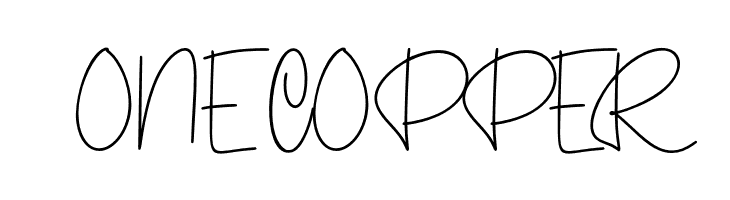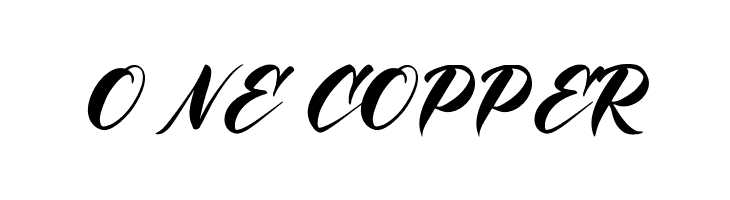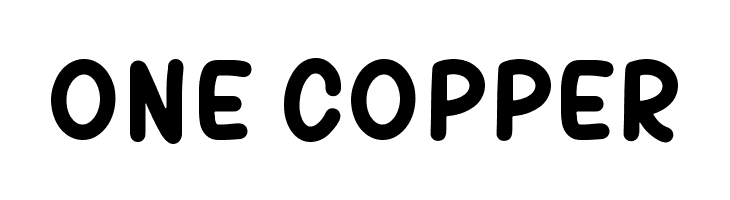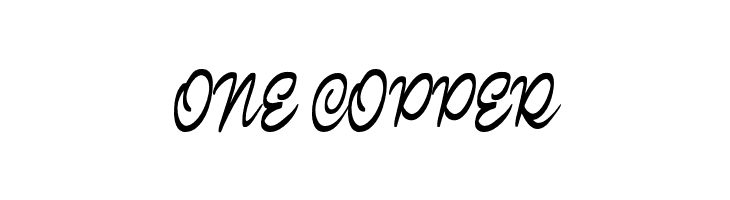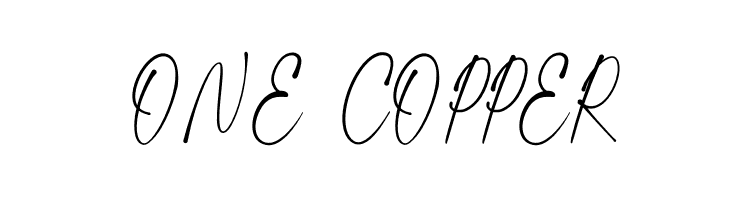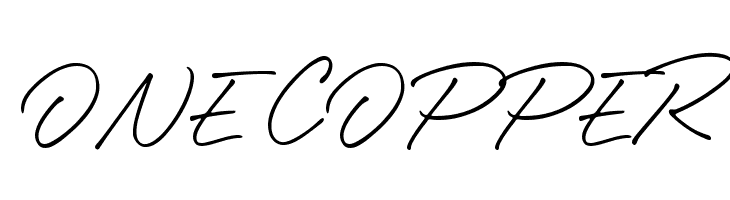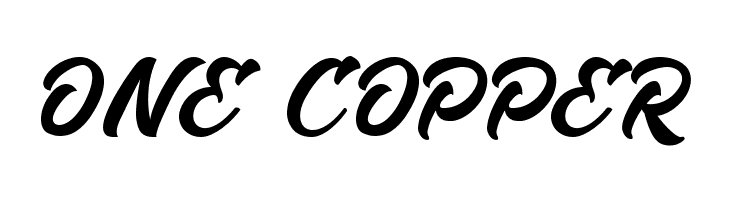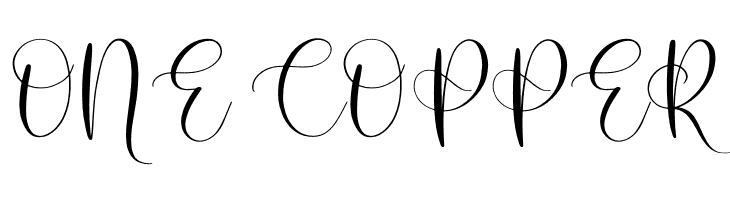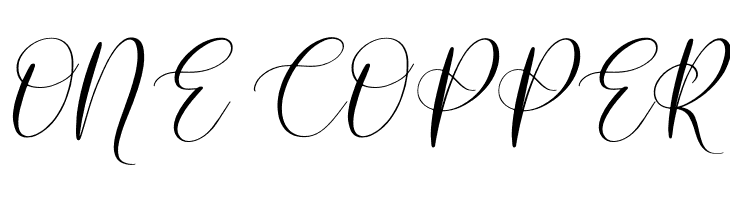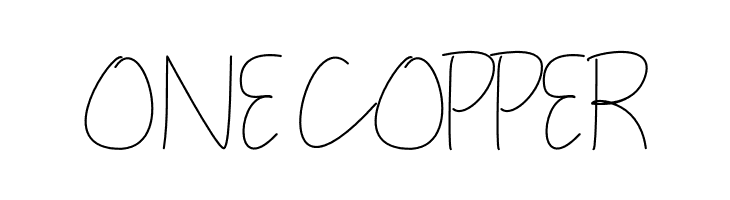
A whimsical, handwritten-style font with flowing, interconnected letterforms.
A flowing, cursive font with elegant loops and swashes, offering a sophisticated and artistic look.
A fluid, elegant script font with a dynamic and sophisticated style.
An elegant, cursive script font with flowing, connected strokes.
A graceful and elegant handwritten script with fluid, flowing letterforms.
An elegant script font with flowing, intricate swashes and loops.
An elegant, flowing script font with interconnected letters and a sophisticated style.
A fluid and elegant script font with a handwritten calligraphy style.
A bold, modern sans-serif font with strong geometric shapes.
A modern, cursive font with a playful and elegant style.
A bold, flowing script font with elegant, cursive letterforms.
A playful, bold font with curvy and dynamic letterforms.
A bold, playful font with decorative elements and a whimsical style.
A bold, impactful typeface with a strong, geometric style.
A bold, organic font with irregular, fluid strokes and a playful, artistic style.
A playful and expressive handwritten font with fluid strokes and dynamic curves.
A bold, cursive script font with dynamic, sweeping strokes.
A bold, hand-drawn font with an energetic and expressive style.
A bold, flowing script font with elegant cursive letterforms.
A playful handwritten font with flowing, irregular strokes and a casual style.
A playful, hand-drawn font with thin, flowing lines and a whimsical style.
A playful handwritten font with flowing, interconnected letterforms and a casual style.
A playful, handwritten script font with smooth, rounded strokes.
A flowing, cursive font with elegant, connected strokes.
A lively, expressive handwritten font with fluid strokes and dynamic style.
A lively handwritten font with fluid, expressive strokes.
An elegant script font with flowing swashes and a handwritten feel.
A flowing, elegant script with delicate swashes and a calligraphic feel.
A bold, dynamic script font with flowing, cursive letterforms.
A bold, flowing script font with ornate curves and loops.
A cursive, handwritten font with elegant, flowing strokes.
( Fonts by Attype Studio - Fadli Ramadhan Iskandar - Personal-use only. For commercial use please contact owner. )
A playful, rounded font with bold, smooth curves and a friendly appearance.
( Fonts by Katario Studio - Rioniga Zandy - Personal-use only. For commercial use please contact owner. )
A playful, elegant script font with smooth, flowing lines and rounded edges.
A bold, elegant script font with flowing, interconnected characters.
An elegant, cursive script font with decorative flourishes and high contrast.